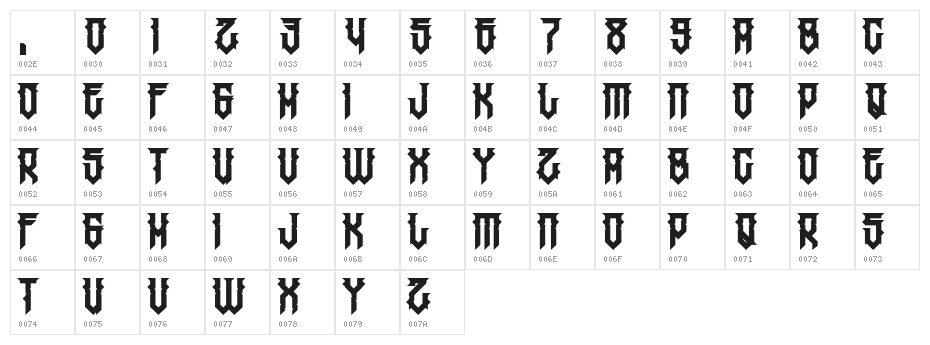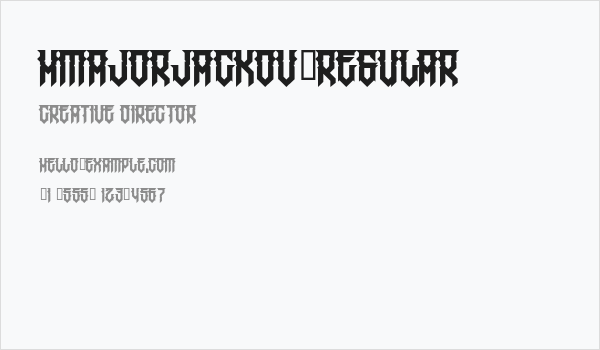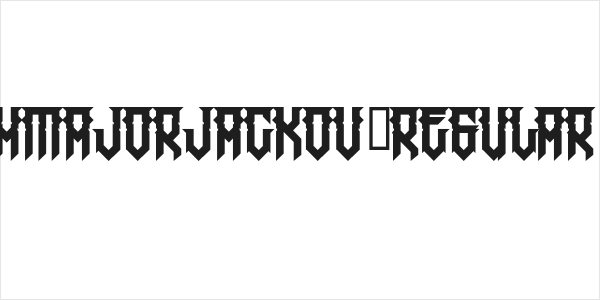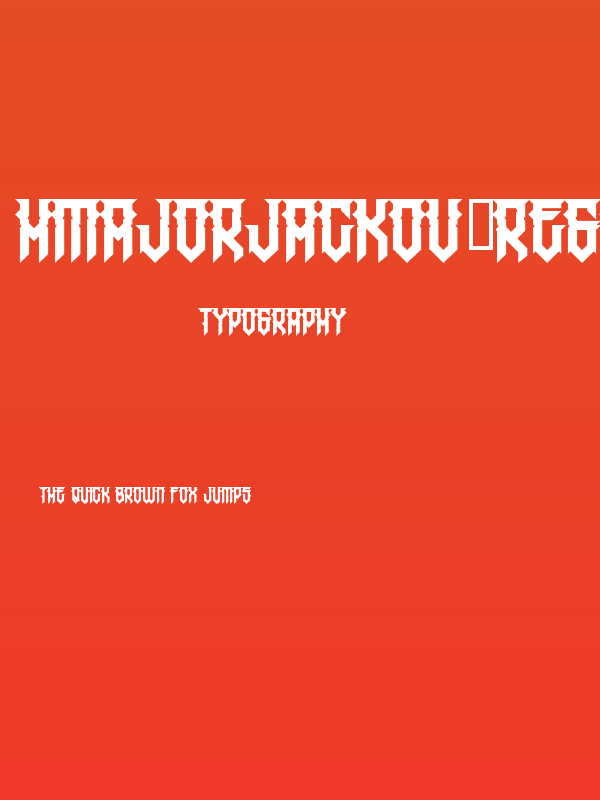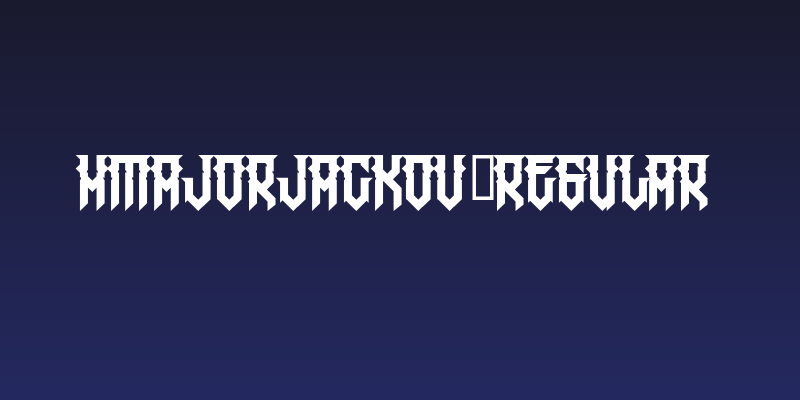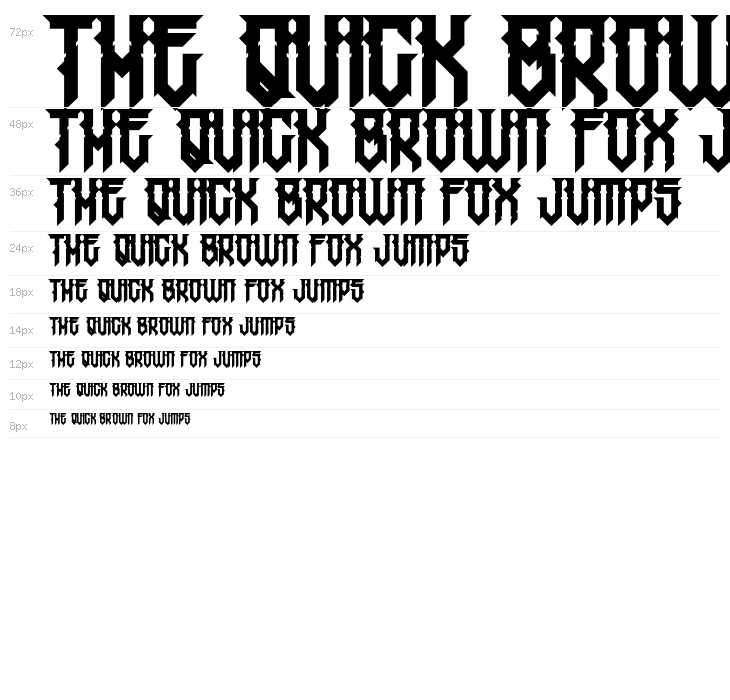
HMajorJackov-Regular Font
HMajorJackov-Regular Description
This font features a bold, geometric design with sharp angles and a blocky appearance. The characters are highly stylized, resembling a fusion of modern and gothic elements. Each letter is crafted with precision, showcasing a unique blend of symmetry and asymmetry, giving it a distinct, edgy look. The uppercase and lowercase letters maintain a consistent style, with the numbers and special characters following suit. The font's design is reminiscent of digital or futuristic aesthetics, making it suitable for projects that require a strong visual impact.
Overall StyleModern, Gothic
Proposed ProjectsIdeal for video game titles, sci-fi movie posters, branding for tech companies, or any project needing a futuristic and bold typeface.